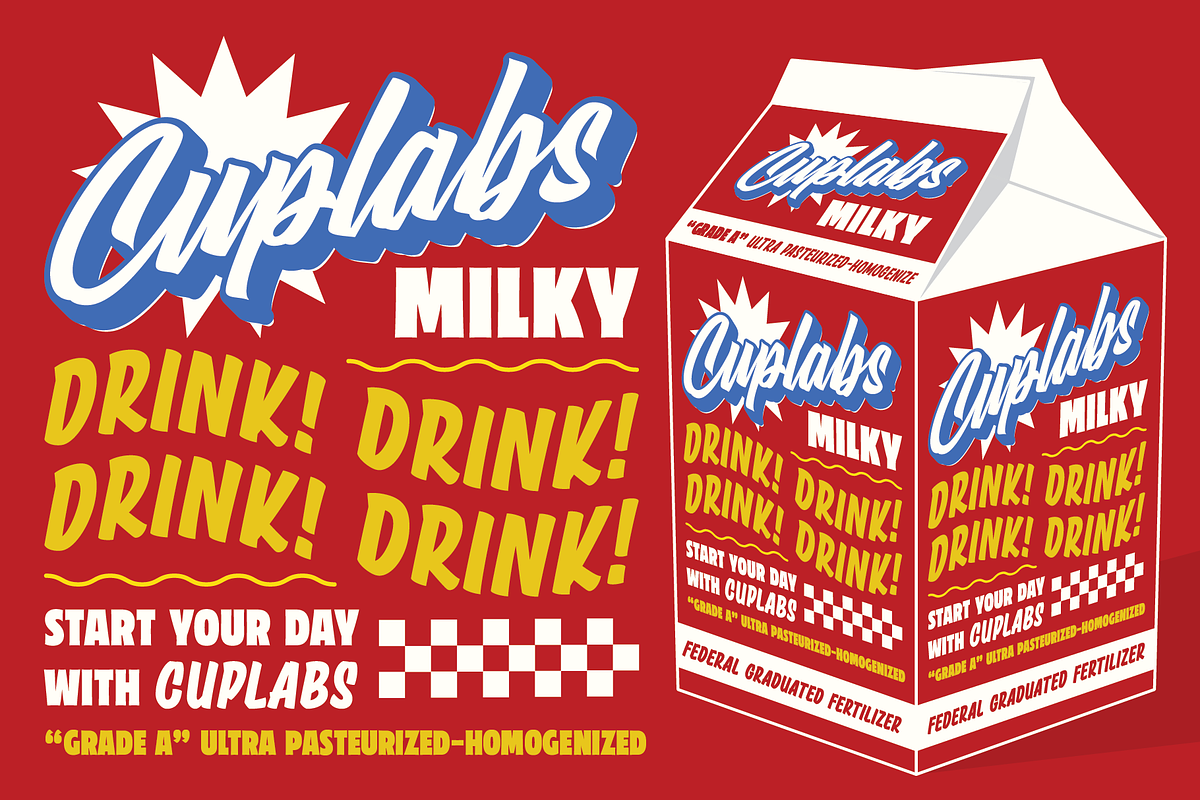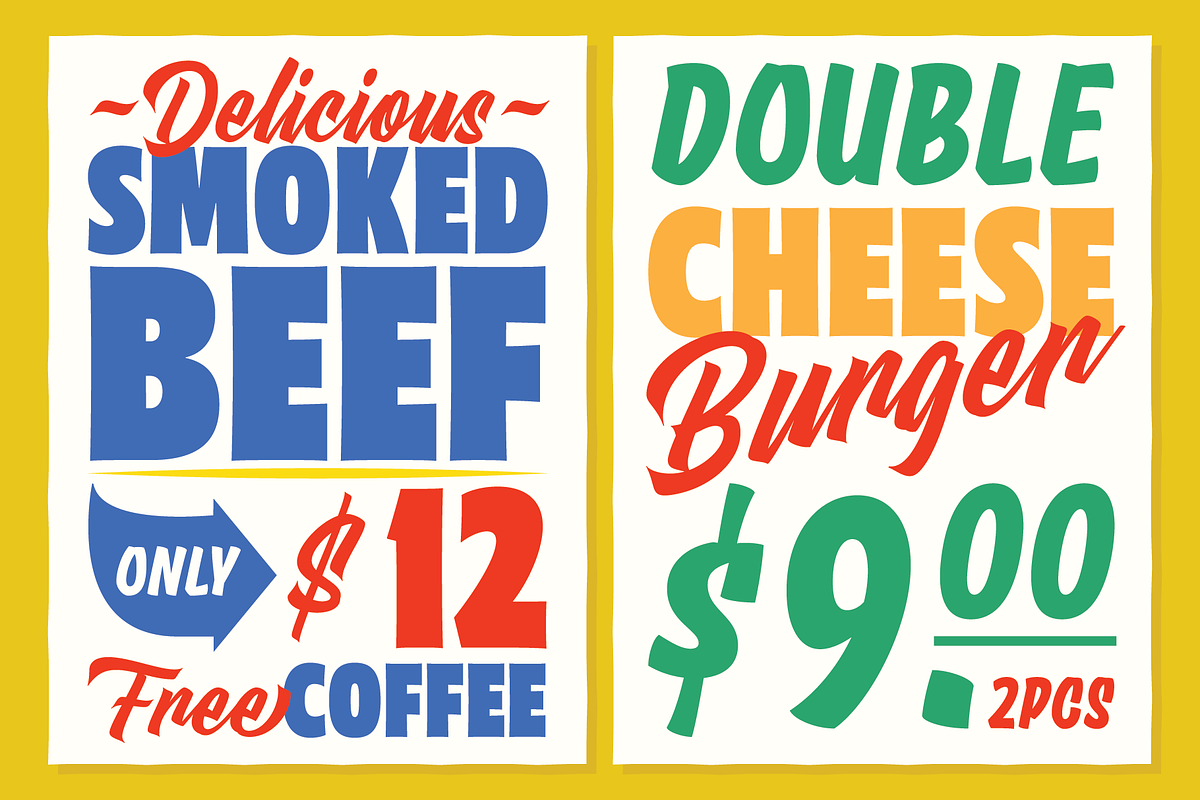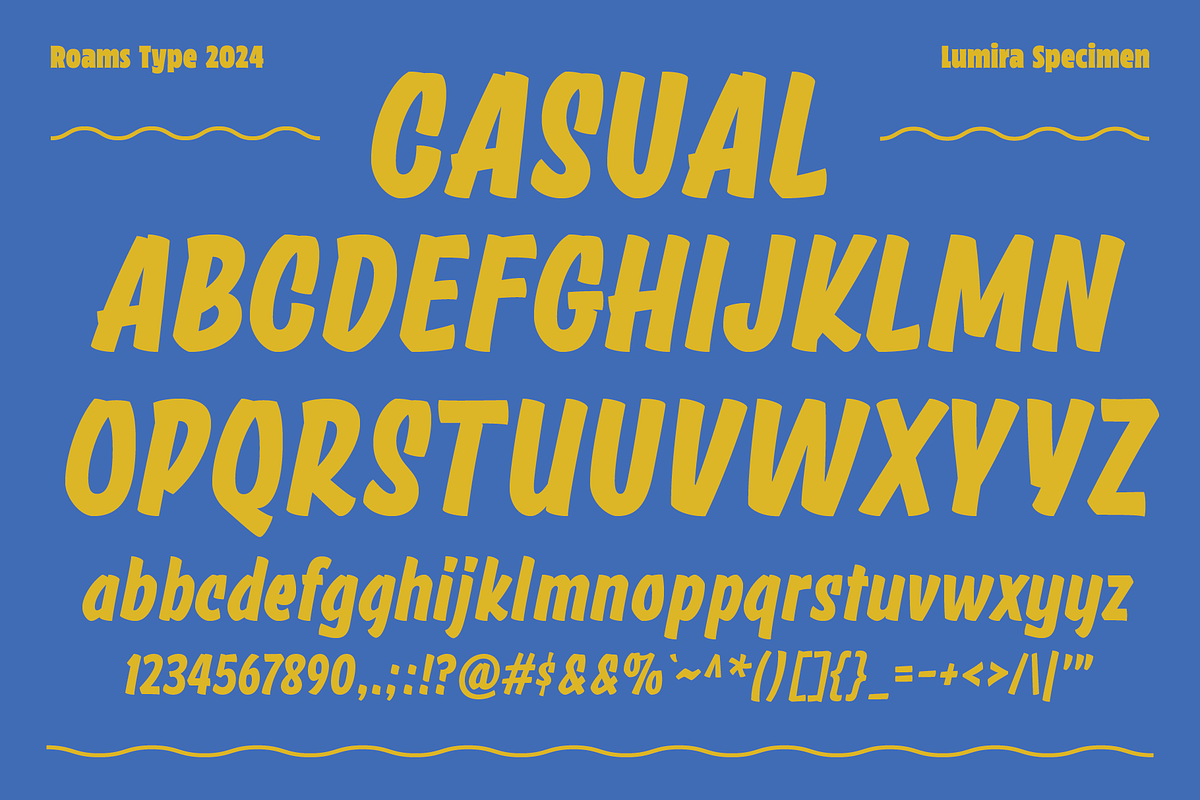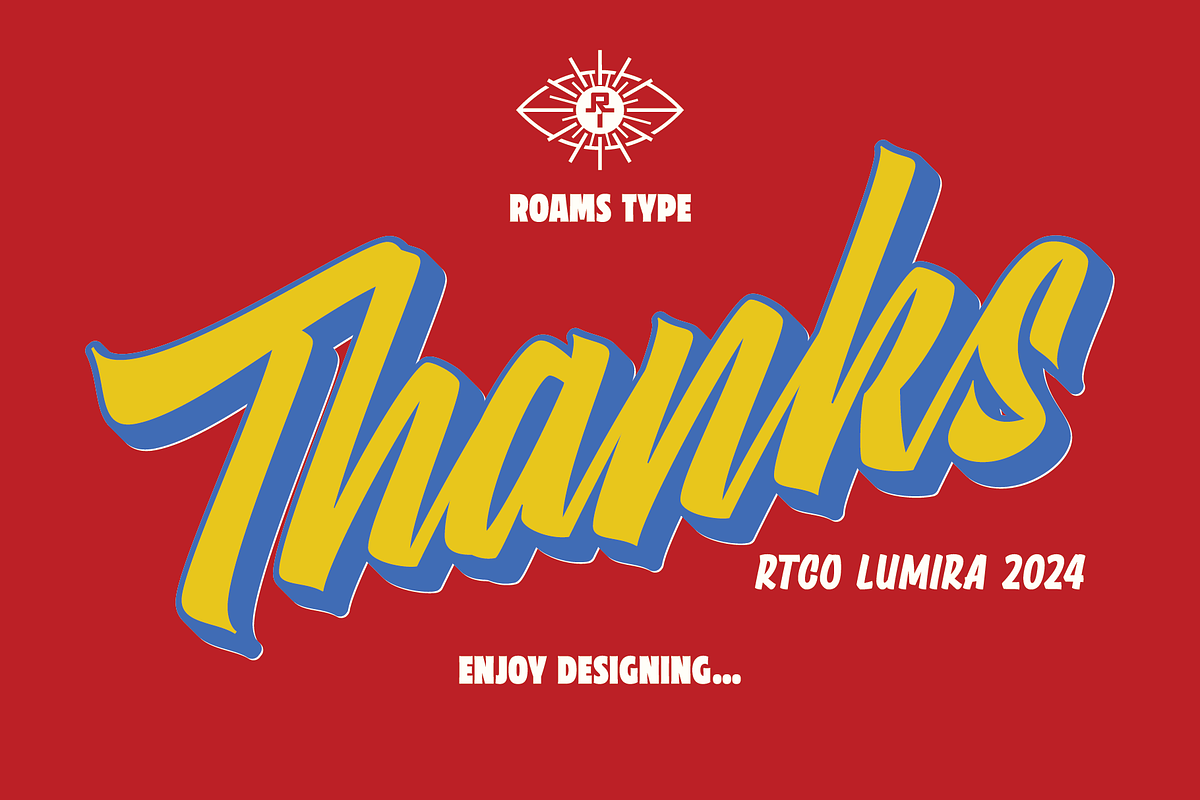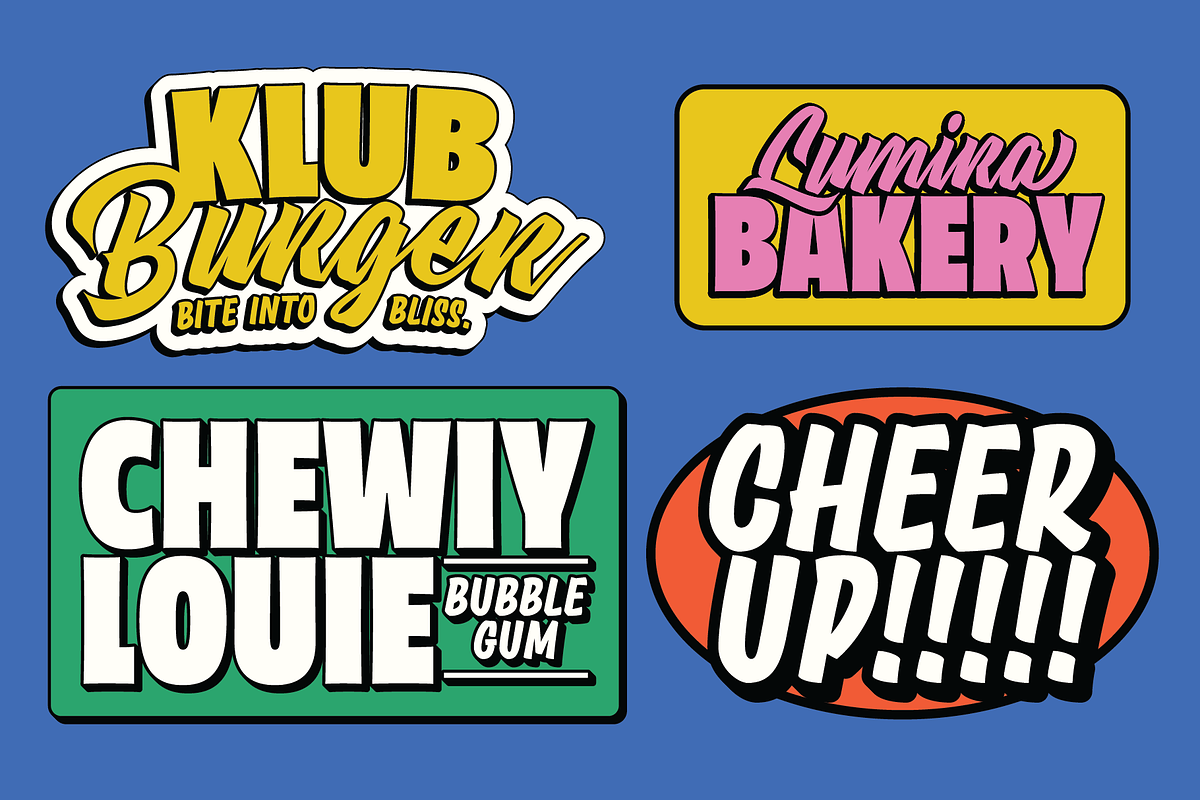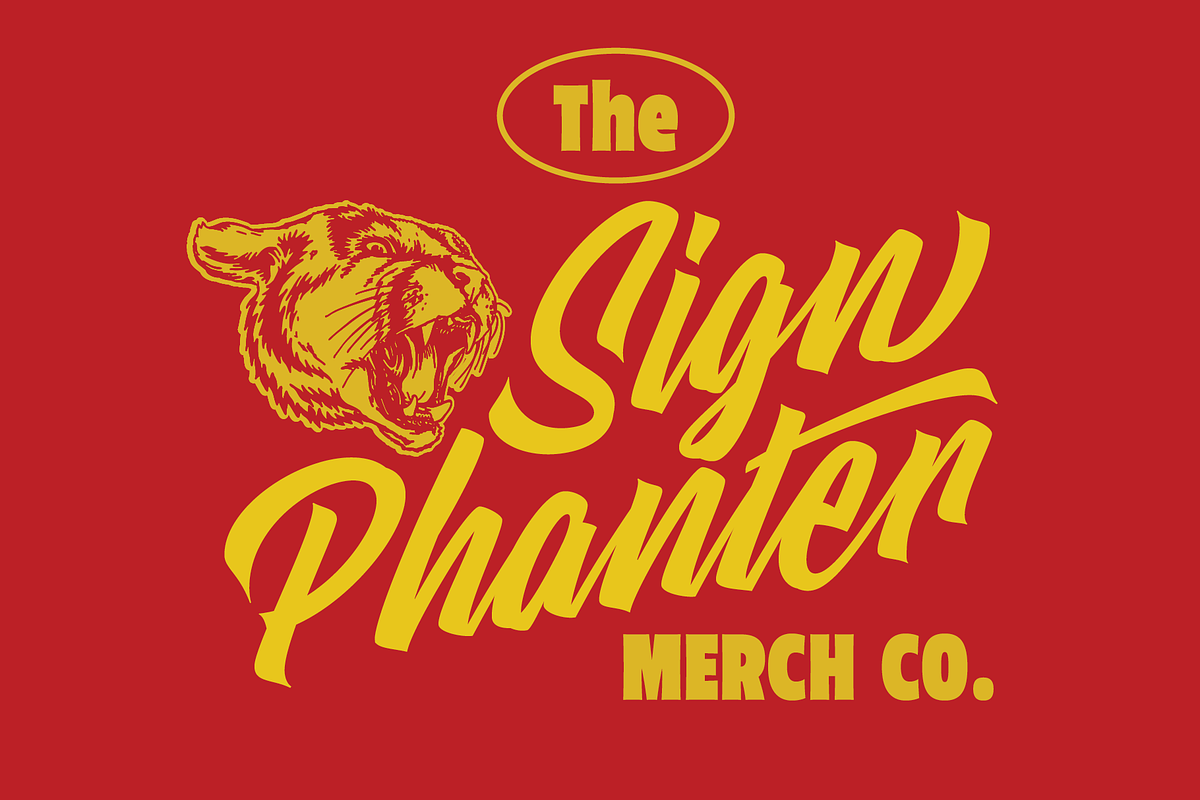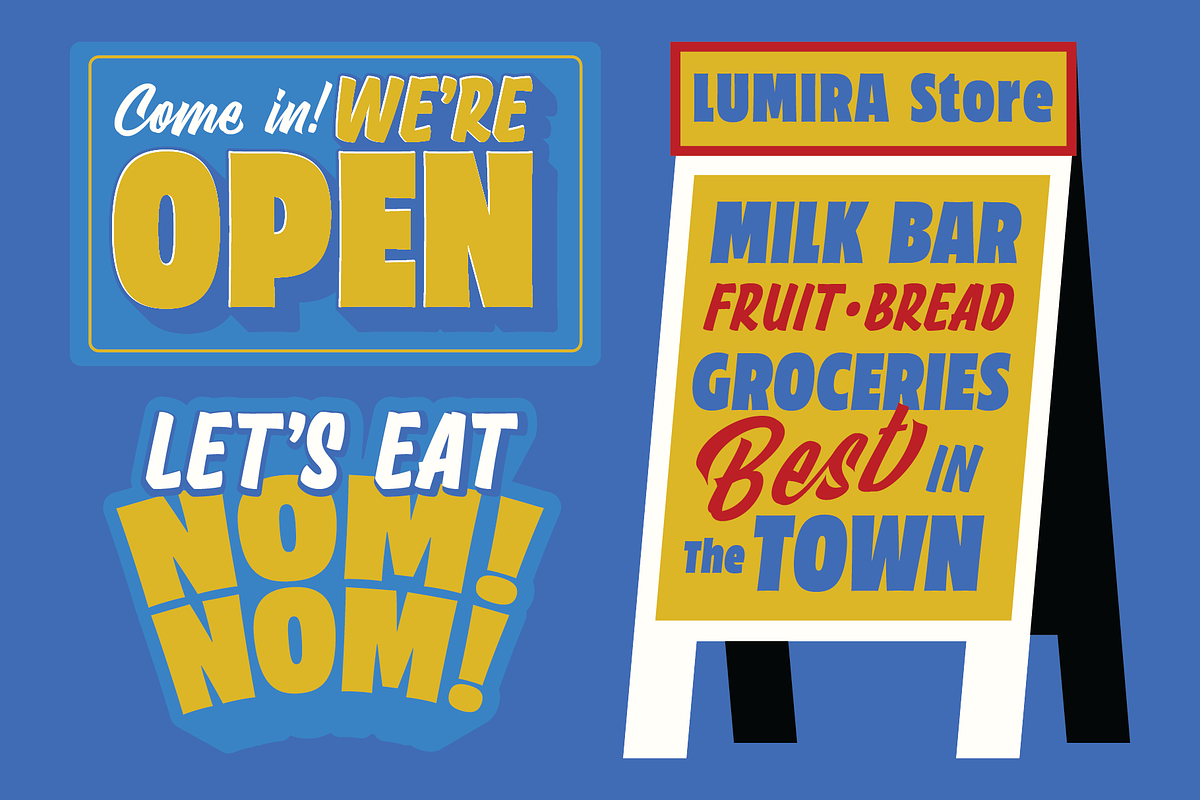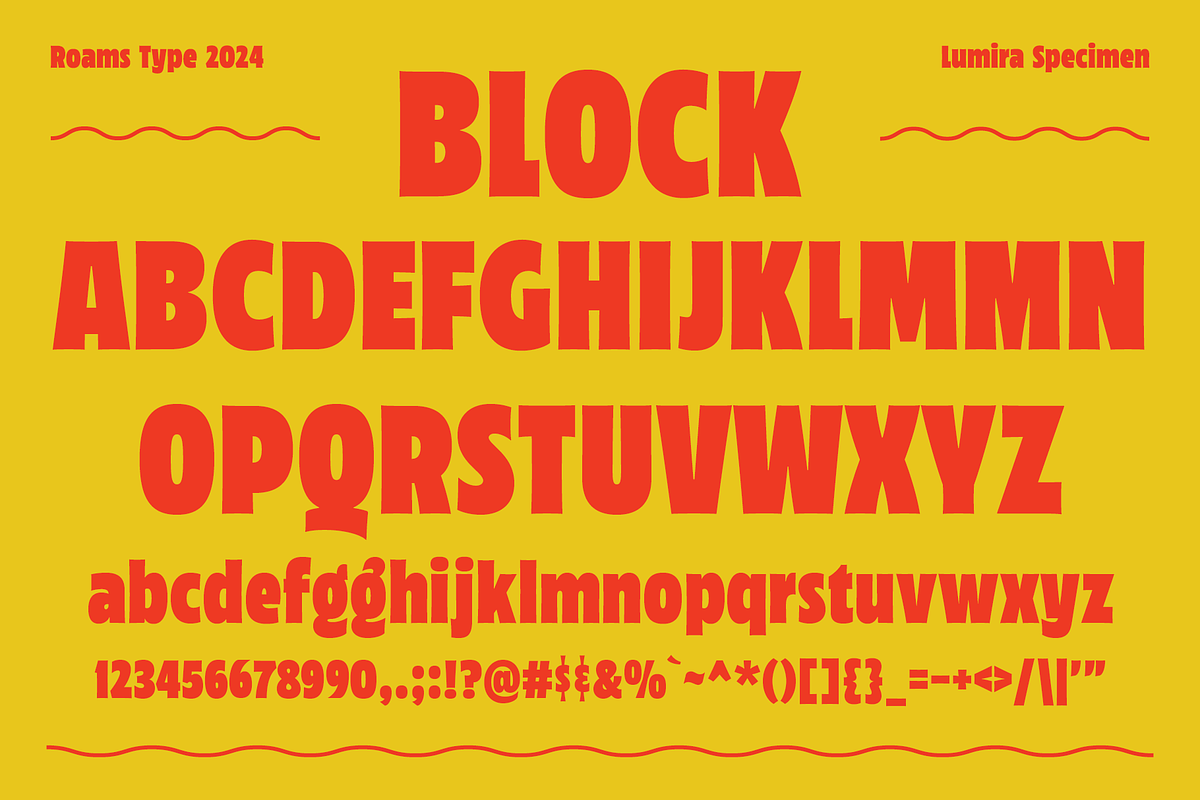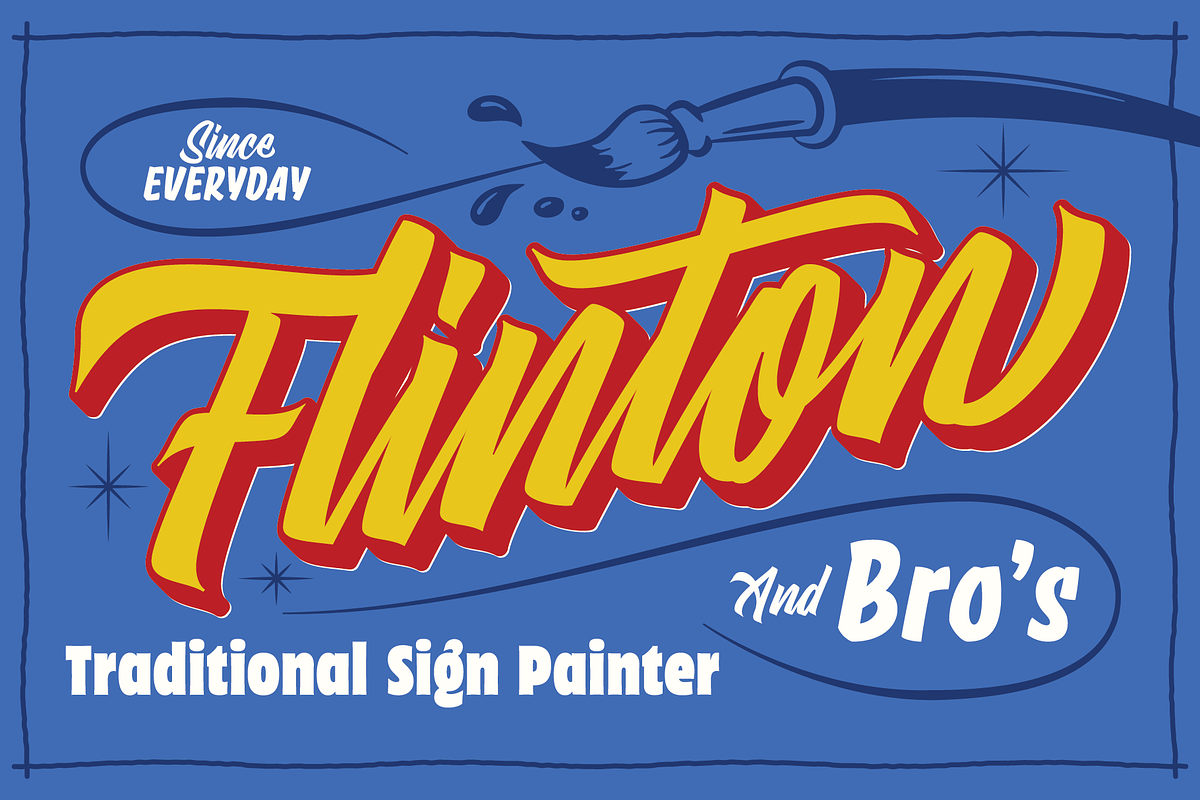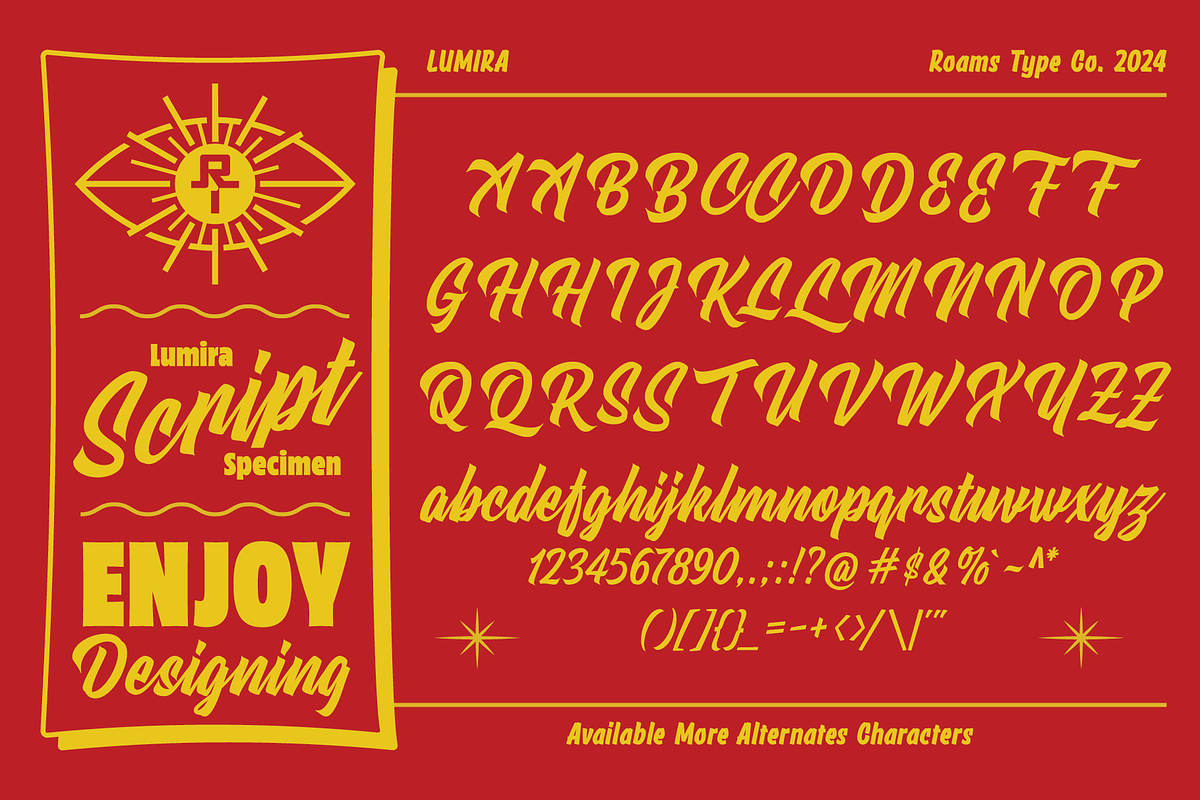
Lumira-Sign Painter Font Collection
LUMIRA-Sign Painter Font Collection
This font was inspired by vintage sign painters and grocery store signs, which is thick and decorative so it looks dynamic this font is very suitable for branding or your store sign
There are 3 types of this font, including BLOCK, CASUAL, and SCRIPT.
This font is suitable for graphic designs such as logotypes, merchandise, printed stickers, and other branding needs.
- RTCO Lumira Block
- RTCO Lumira Casual
- RTCO Lumira Script